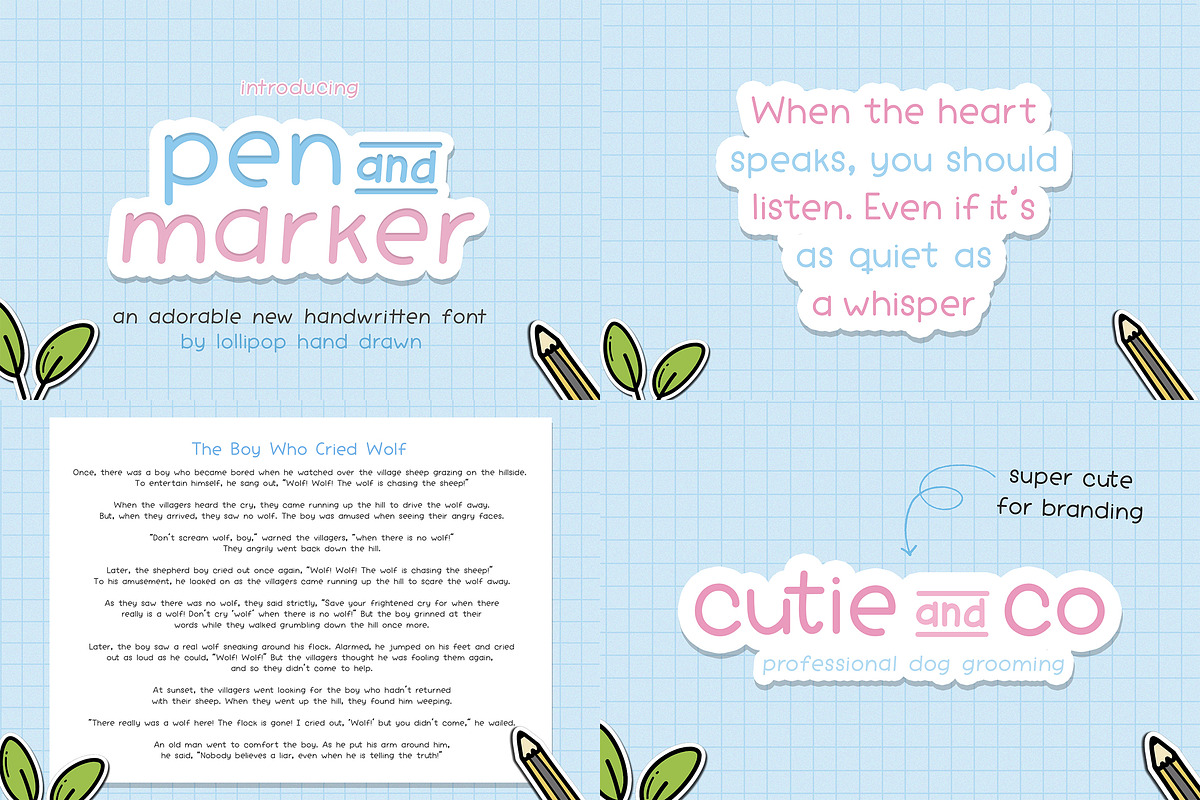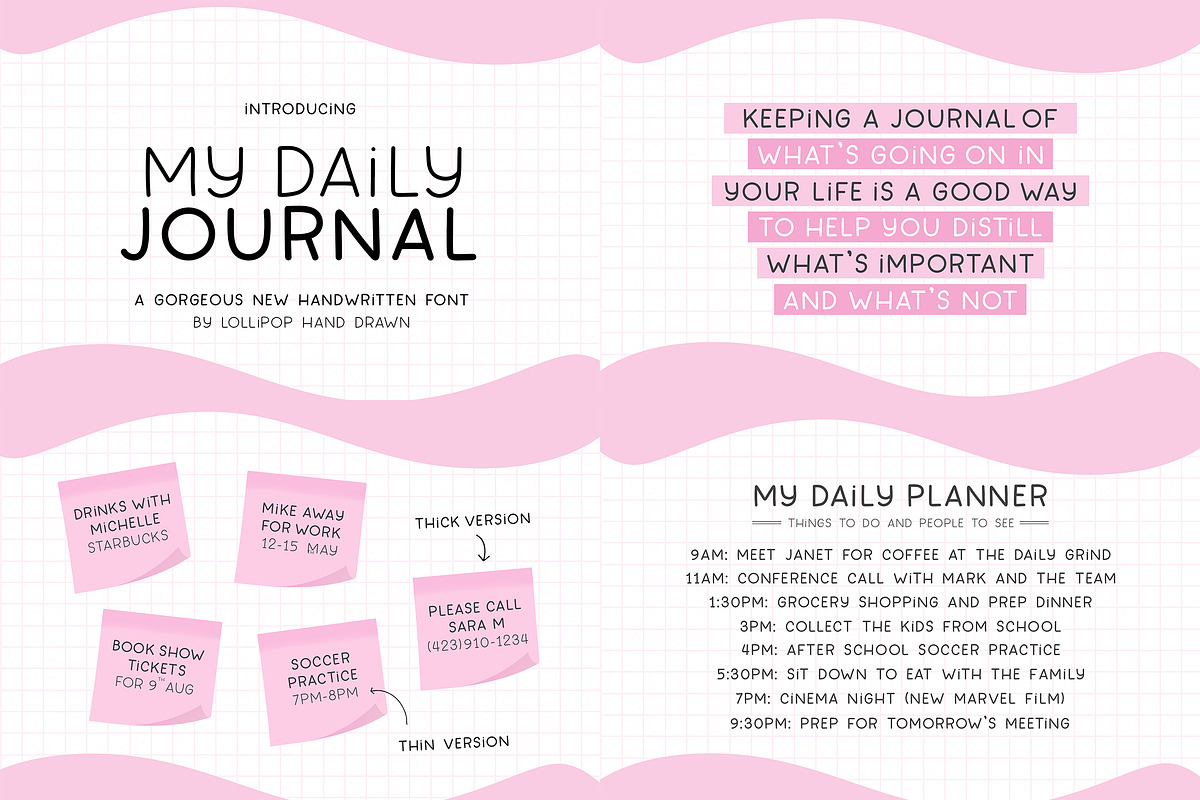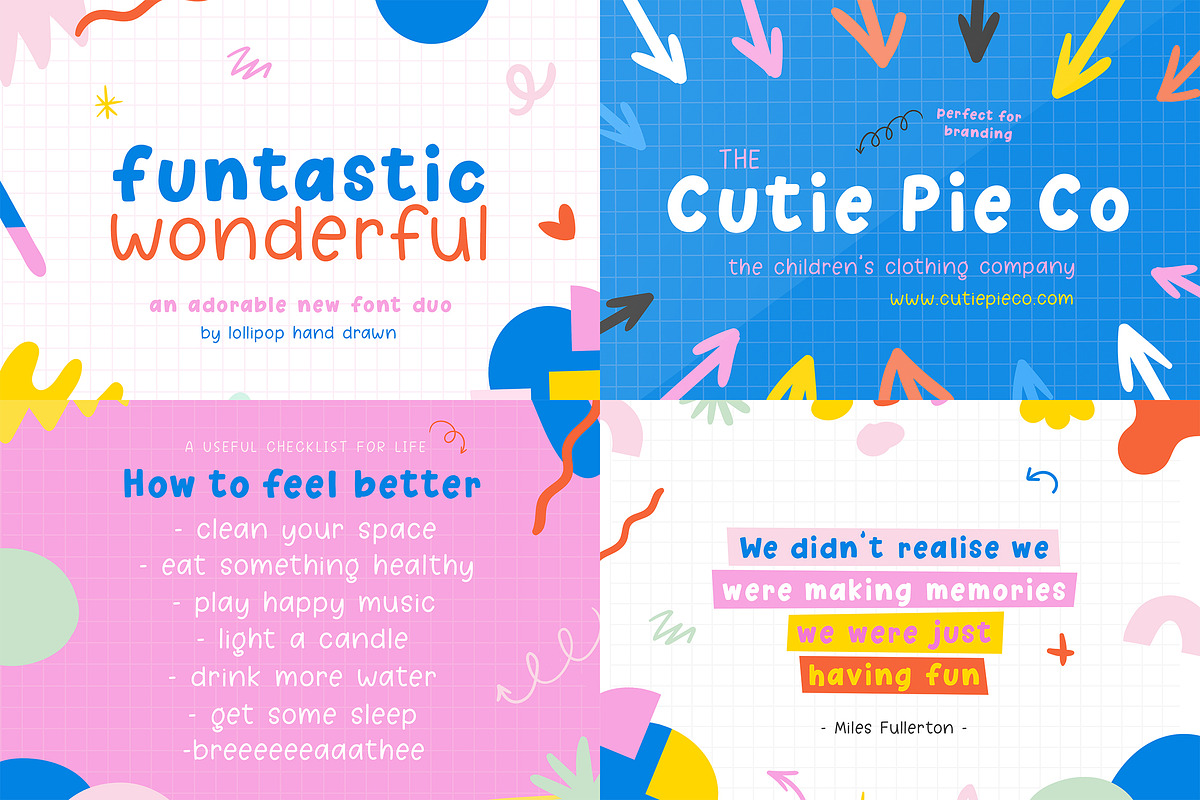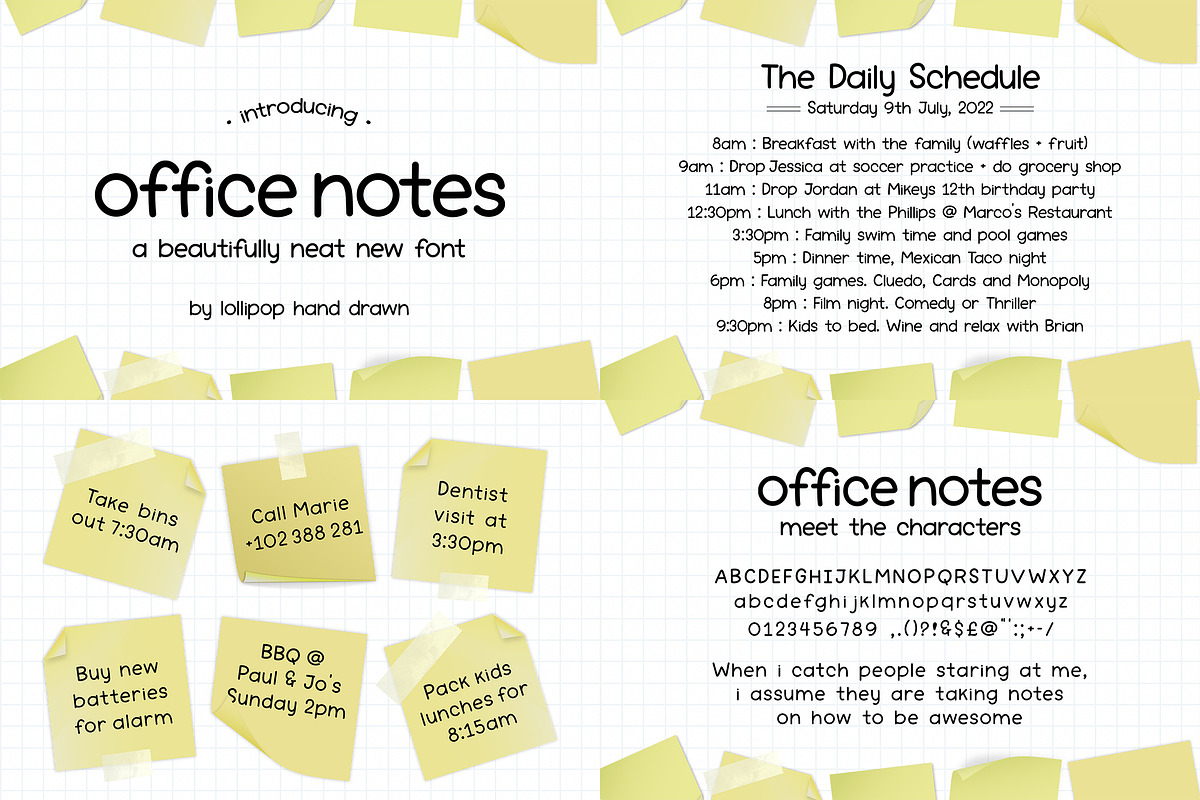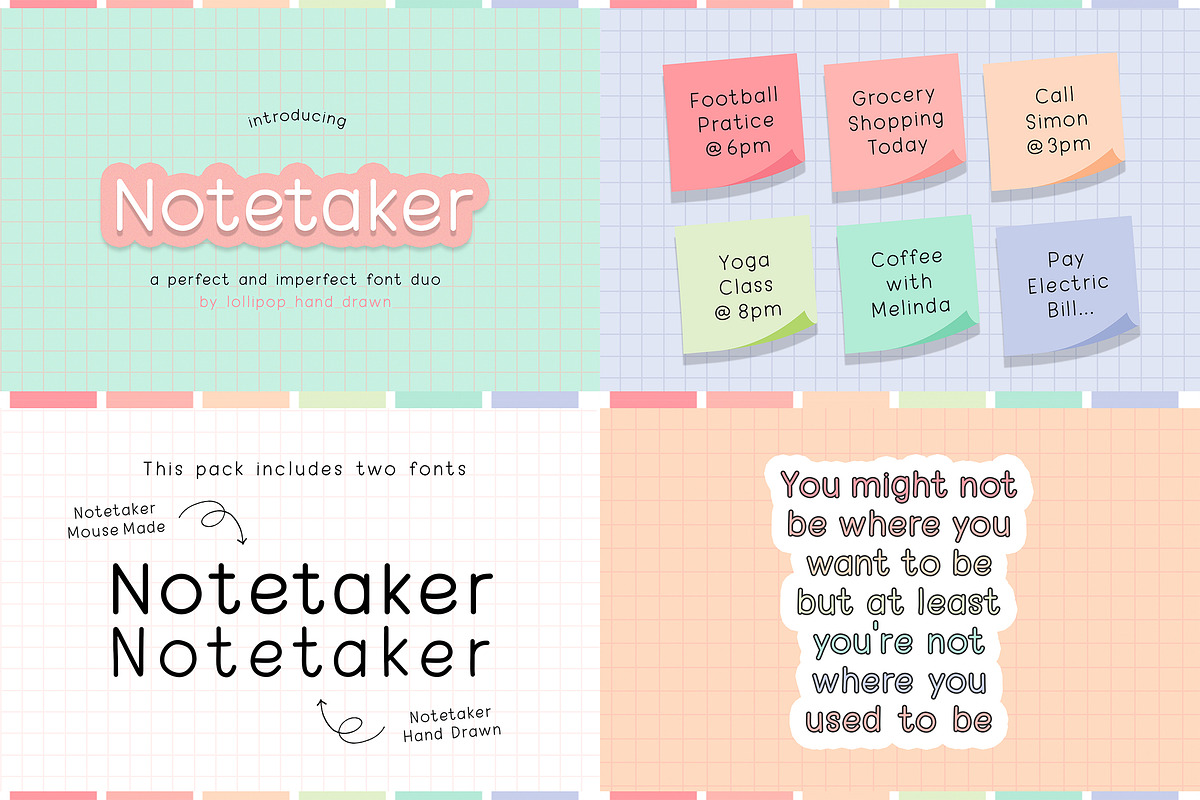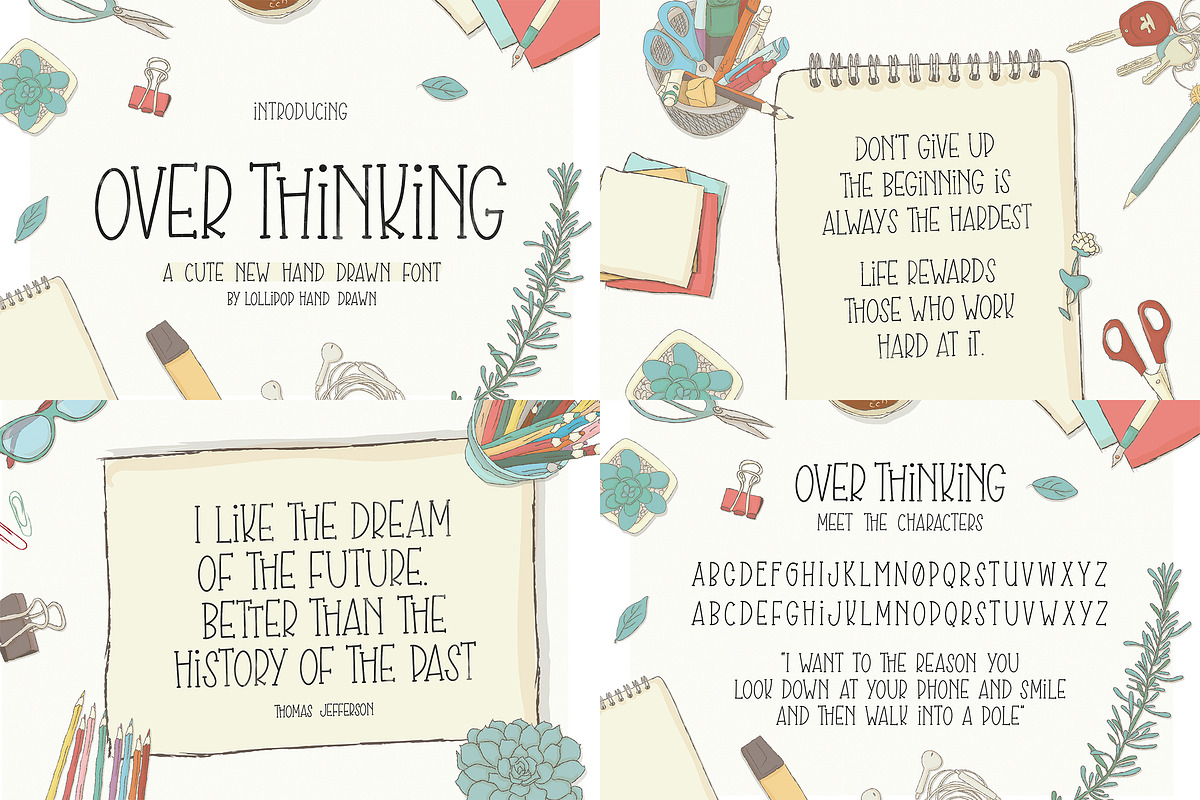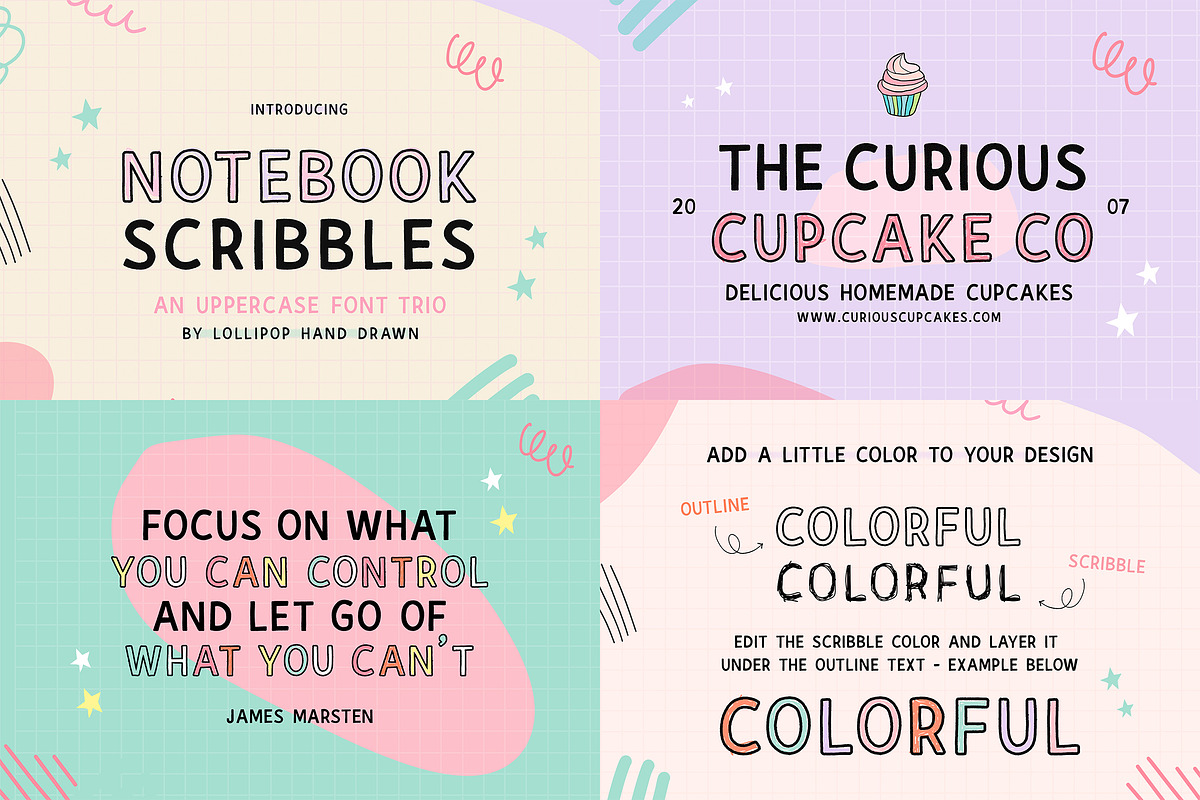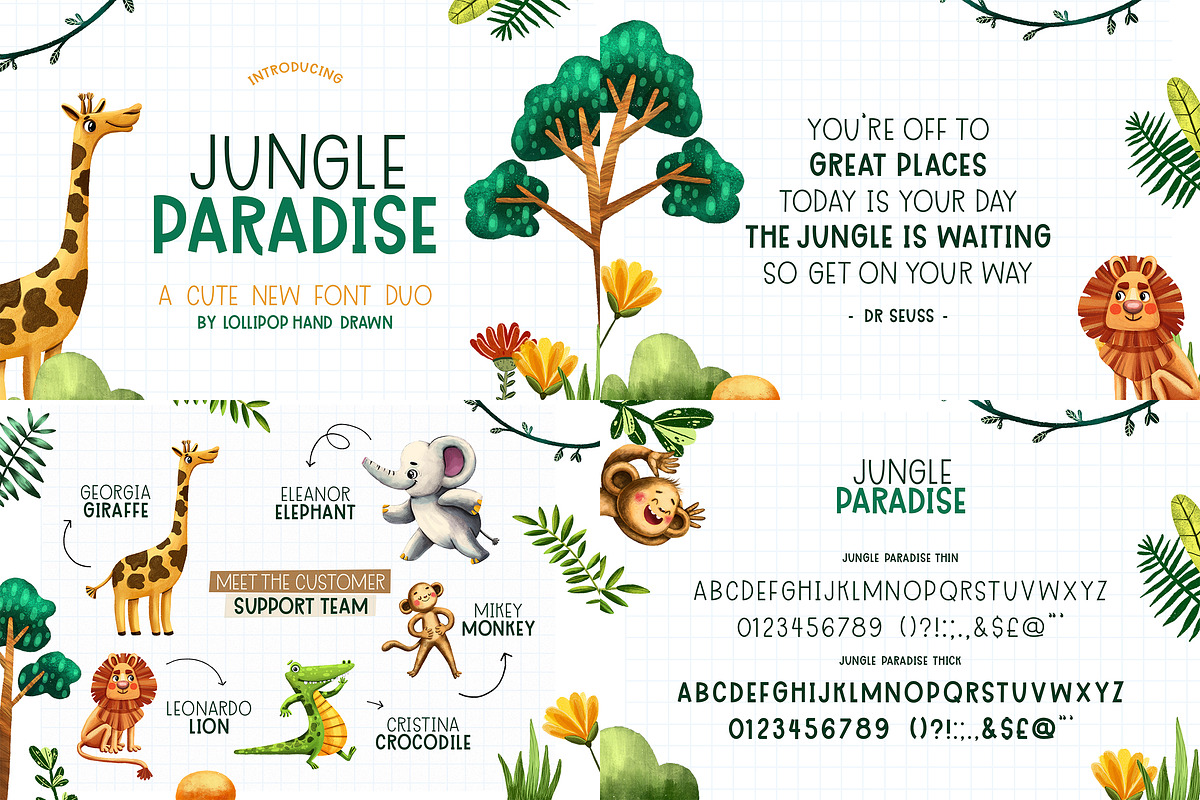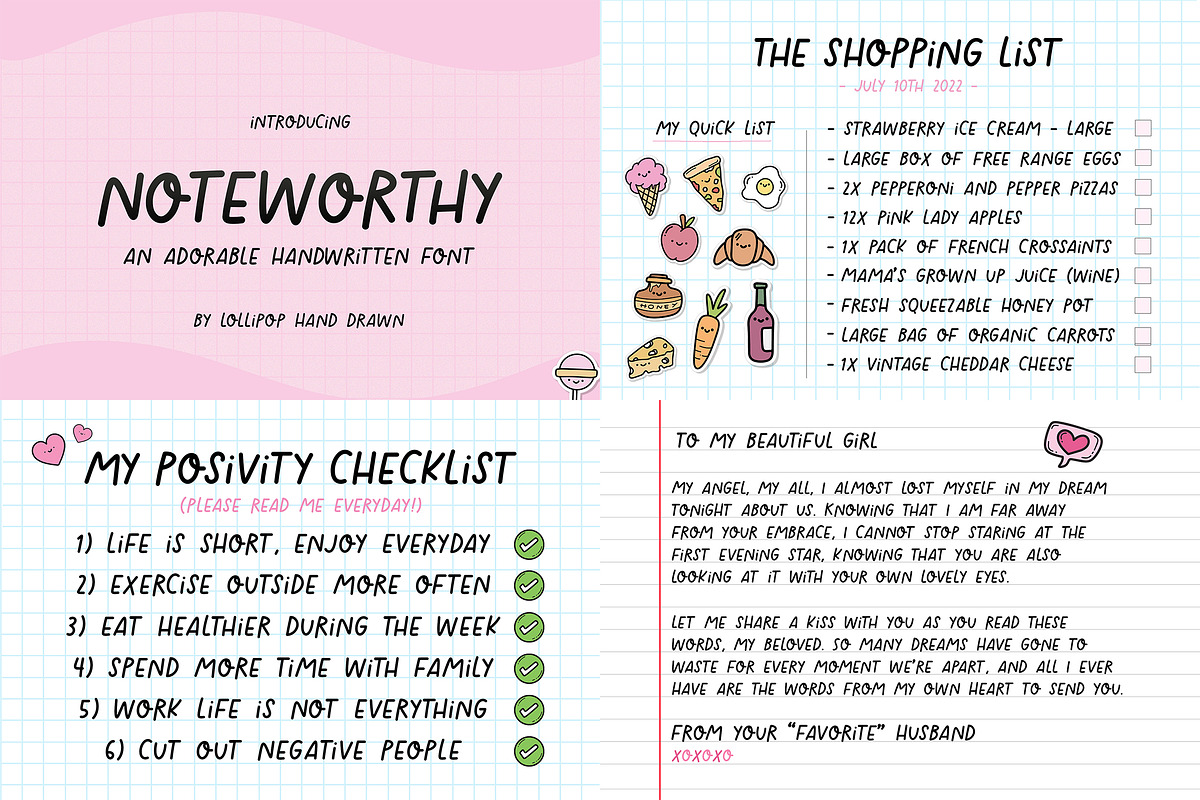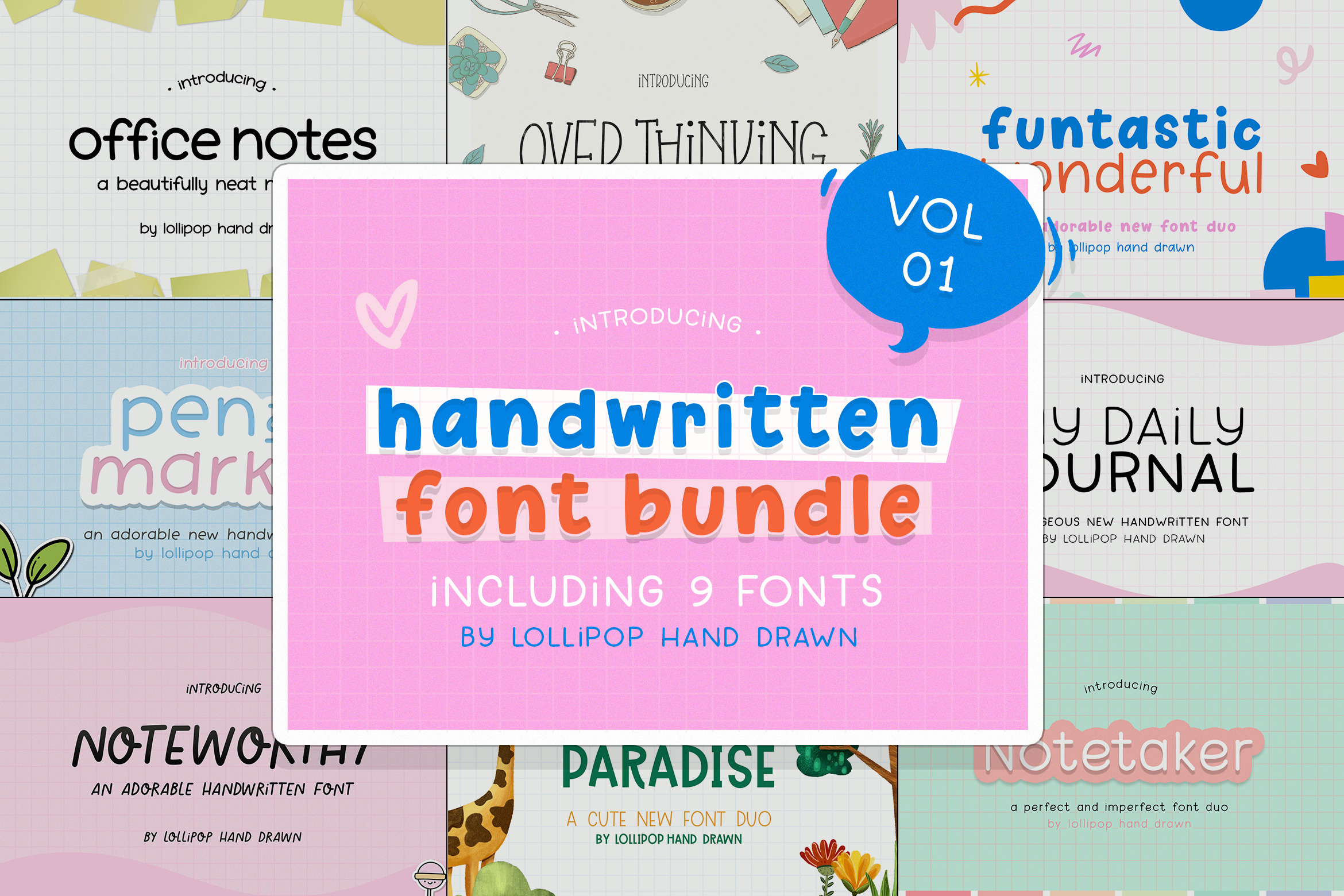
Handwritten Font Bundle (Vol 01)
Introducing the Handwritten Font Bundle (Vol 01). This adorable pack includes 16 different fonts over 9 different products for ONLY $9! This font bundle works perfectly on a wide range of programs including Microsoft Word, Powerpoint, Cricut, Silhouette, Procreate, Canva Pro, Corjl, Goodnotes and many more.